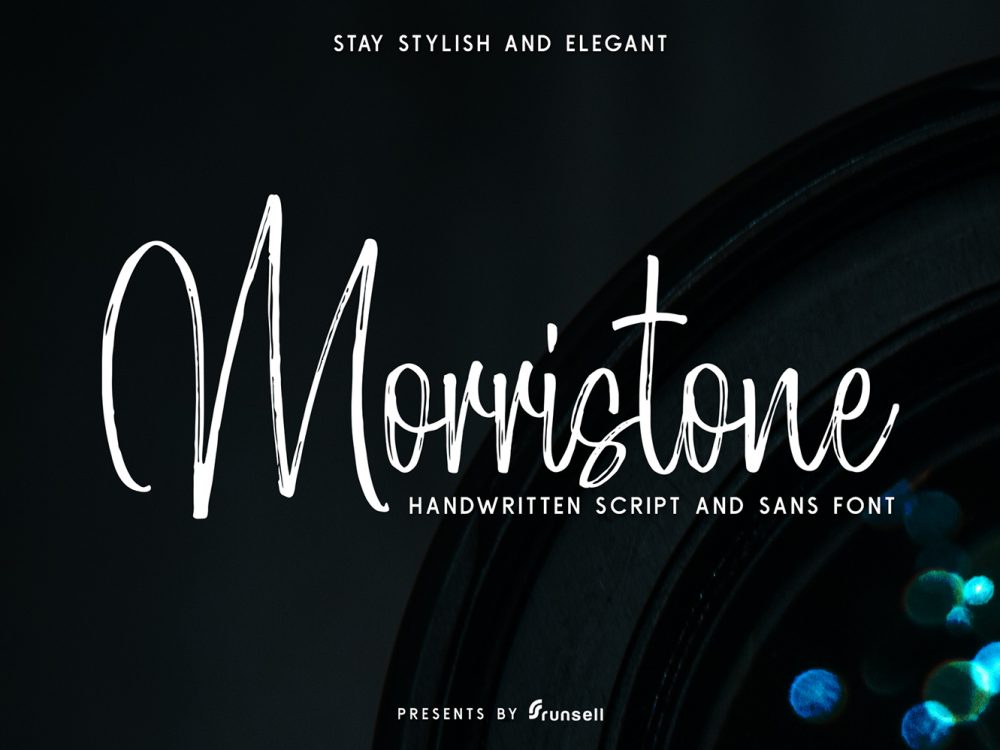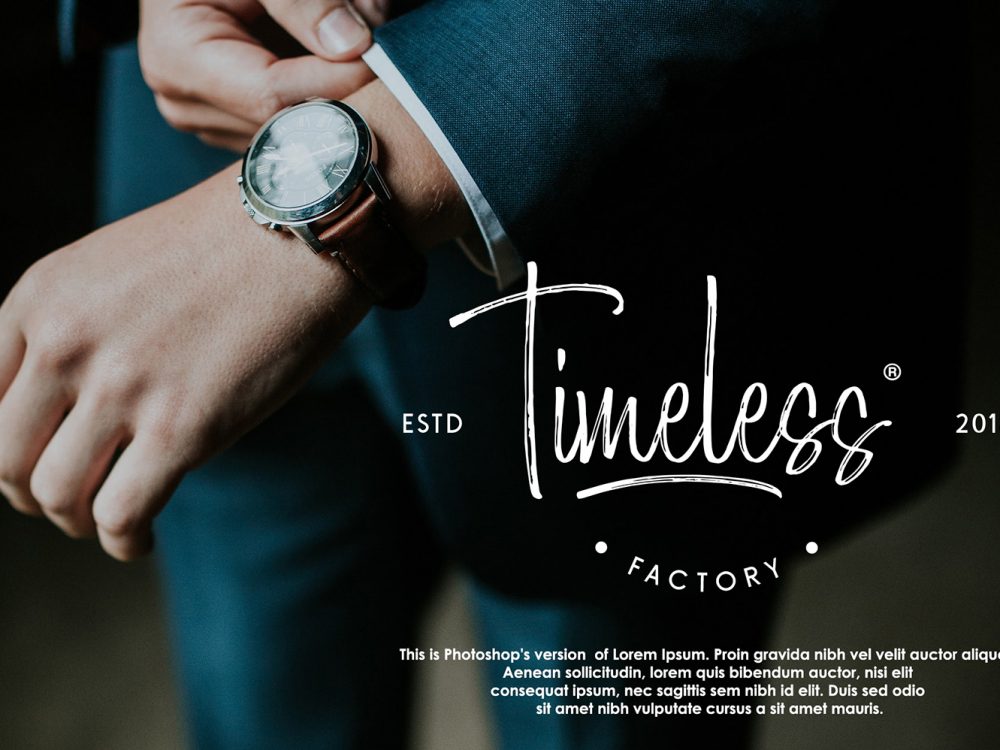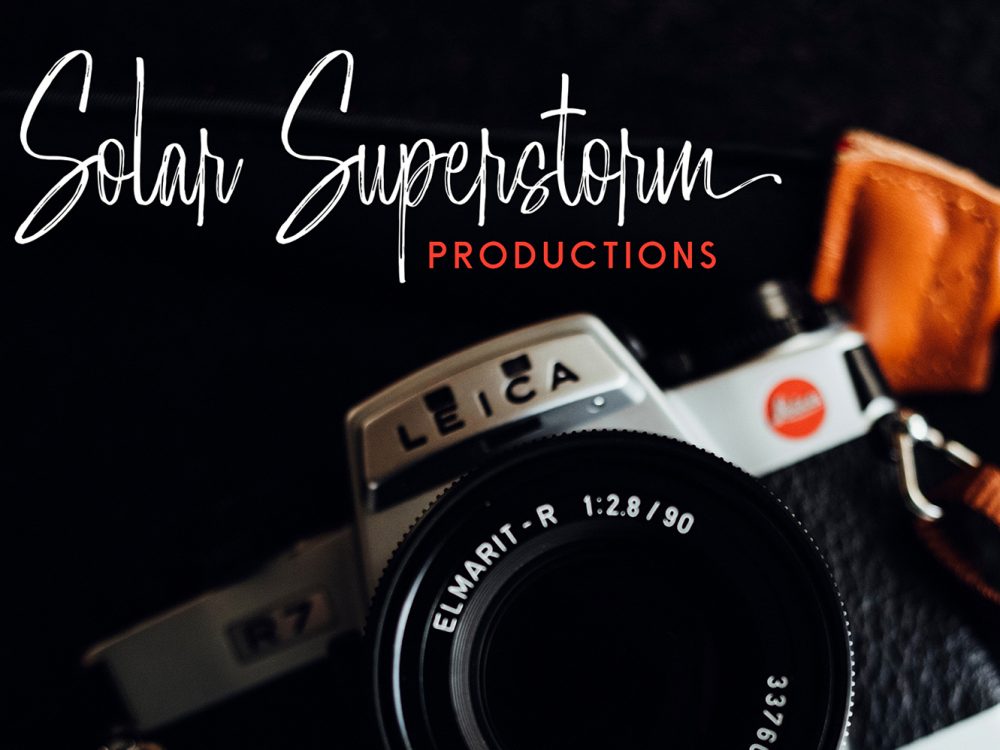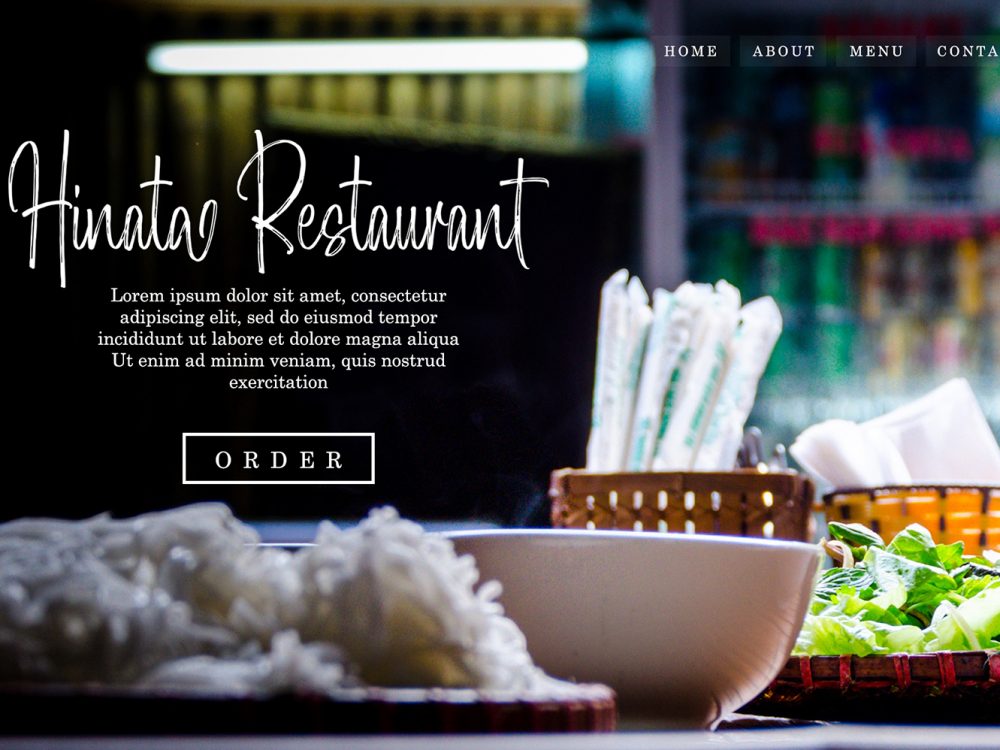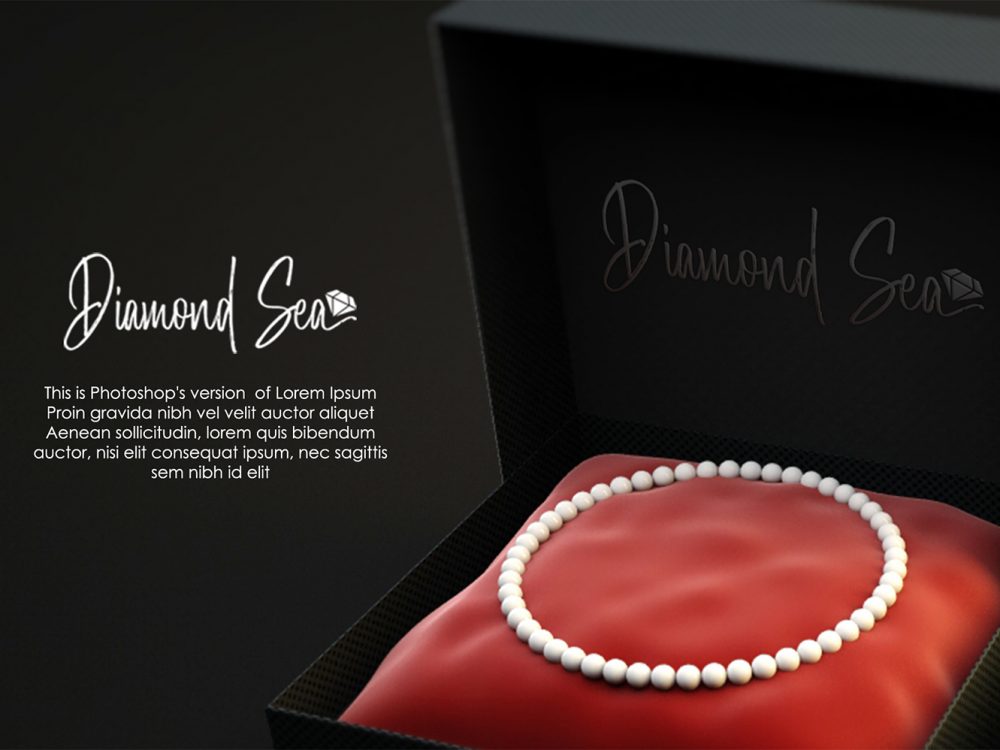
Morristone Free Font
Morristone Free Font is a typical font with a signature look with the natural flow and texture inside. This is an interesting typeface with a unique calligraphic style. This font is very suitable for a variety of design projects that require a scripted handwritten font. You can use this font to create memorable romantic posters, wedding invitations, greeting cards, branding, flyers, t-shirt and pillow prints, and more. Improve the quality and increase the popularity of your design projects using this font. If you like it don’t forget to check out the full version.